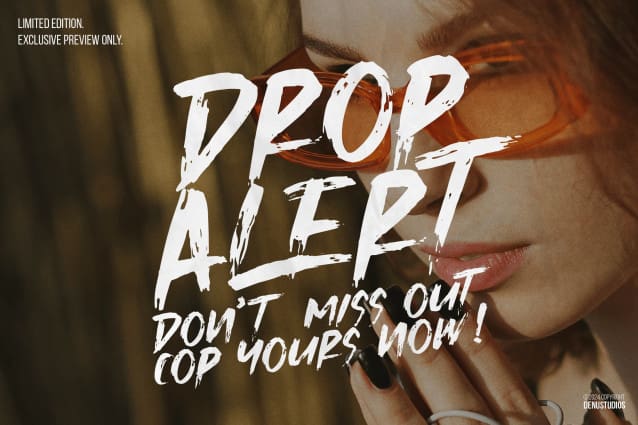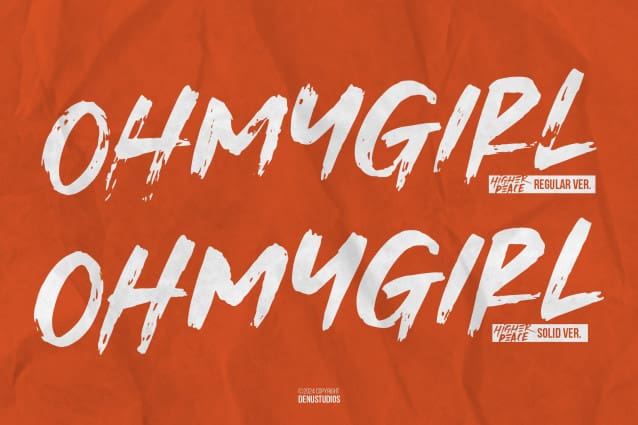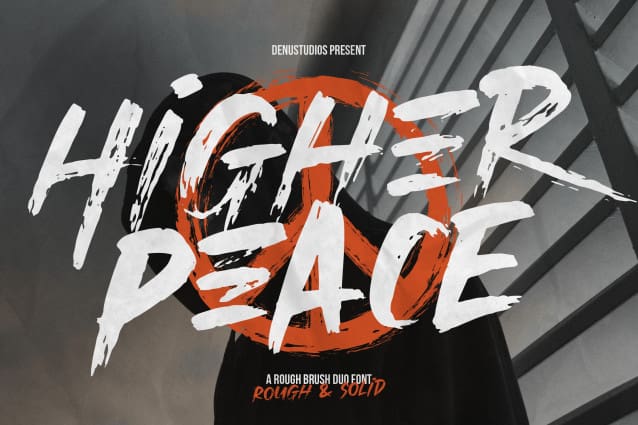
Higher Peace Font
Higher Peace Font | Rough Brush Duo Font, from Denustudios, suitable for any projects such as: logos, branding projects, homeware designs, product packaging, mugs, quotes, posters, shopping bags, t-shirts, book covers, name card, invitation cards, greeting cards, label, photography, watermark, special events, and all your other lovely projects that need a Rough Brush Duo Font taste.